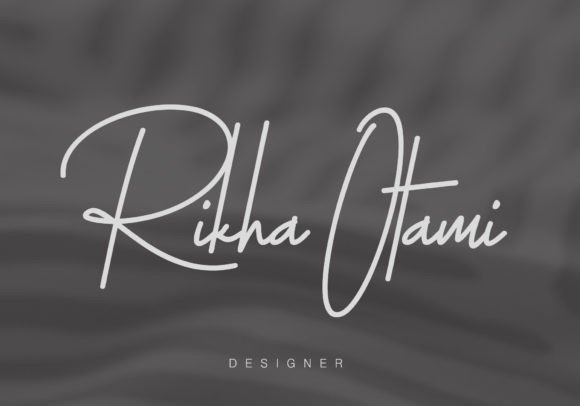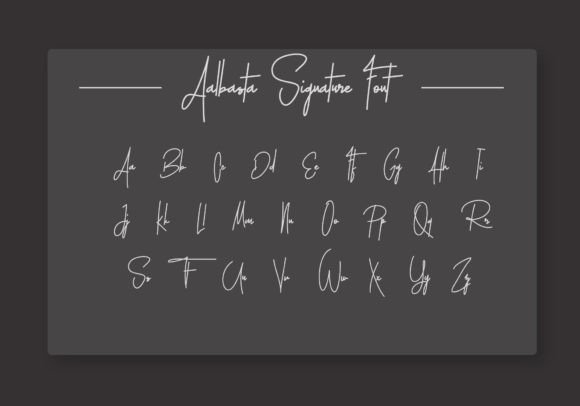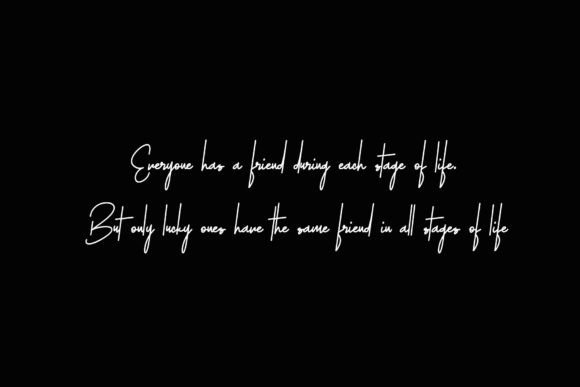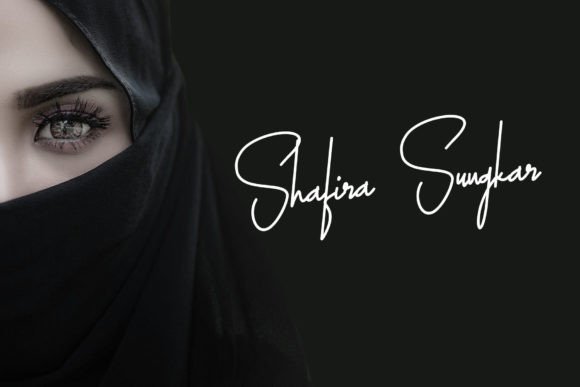
Aalbasta is a dazzling script font. This font is neatly crafted and highly detailed. Whatever the topic, this font will be a wonderful asset to your font library, as it has the potential to enhance any creation.